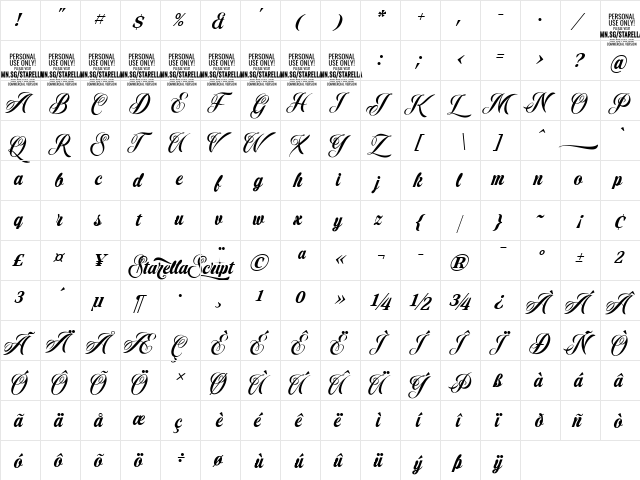
Starella Script PERSONAL USE Regular
| Foundry | Mans Greback |
| Designer | Mans Greback |
Design Context for Starella Script PERSONAL USE Typeface
Starella Script PERSONAL USE brings a calligraphic fluidity to the page — its connecting strokes and expressive curves give it an unmistakably human quality.
Font Pairing: Combine Starella Script PERSONAL USE with a simple geometric sans for maximum contrast — the tension between flowing curves and clean structure is a classic typographic pairing.
Pro Tip: Use Starella Script PERSONAL USE for short runs of text — names, titles, or taglines. Extended body copy in script faces tires the eye quickly.